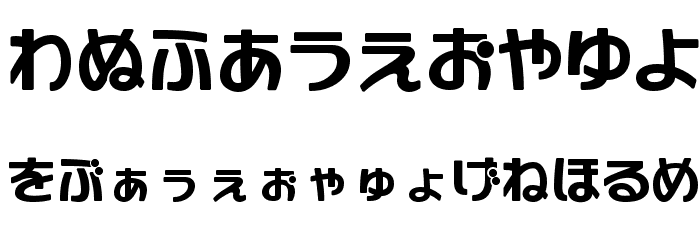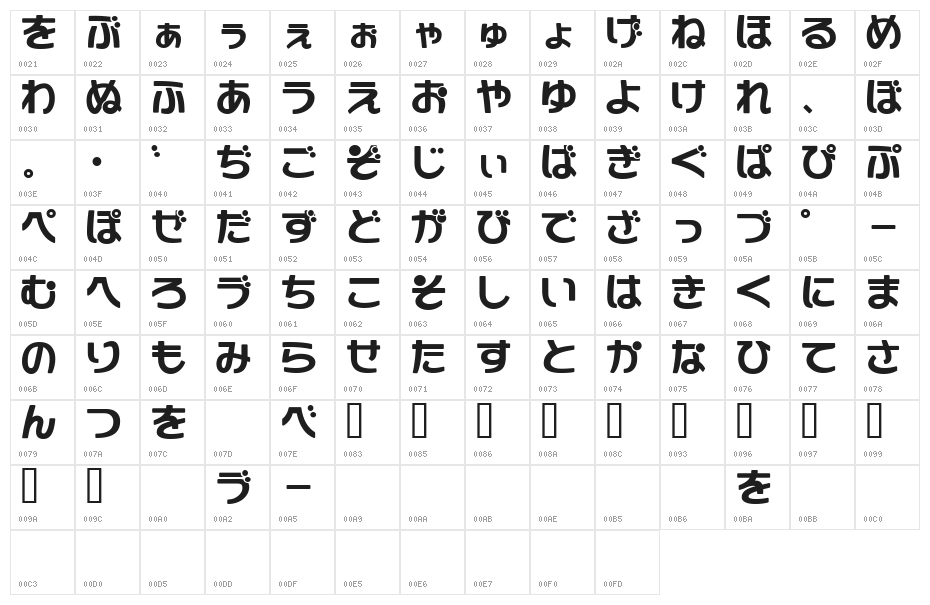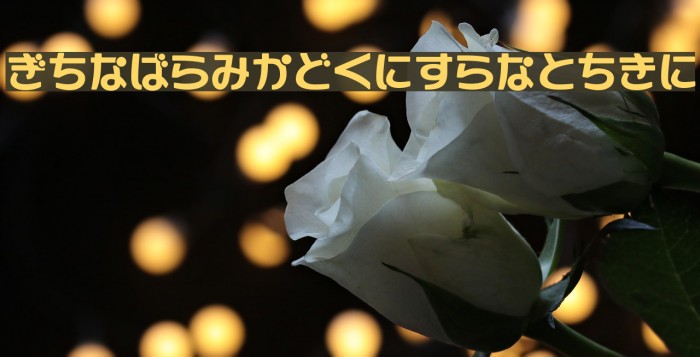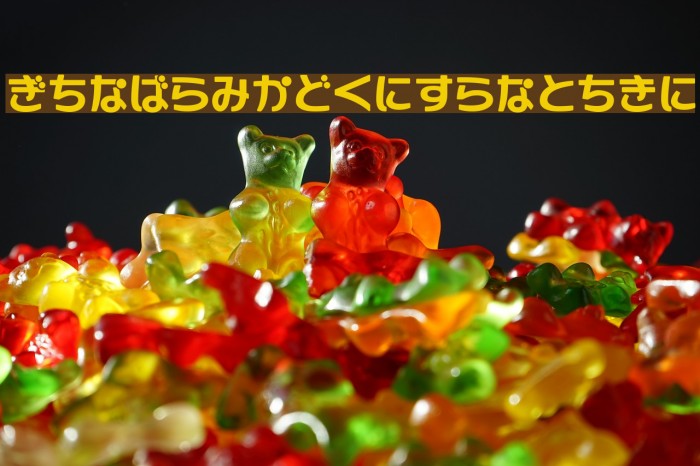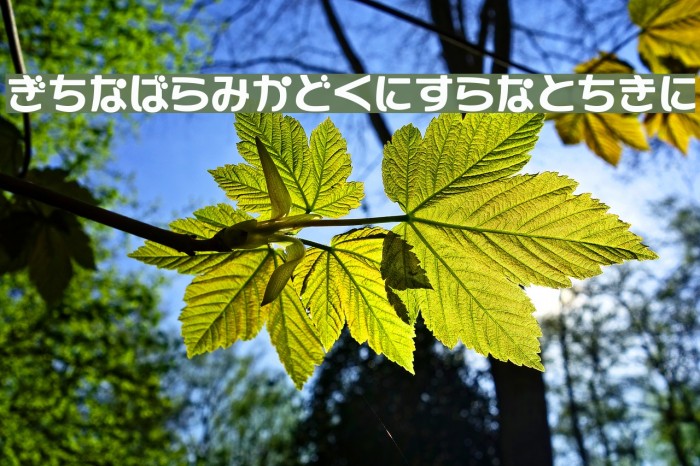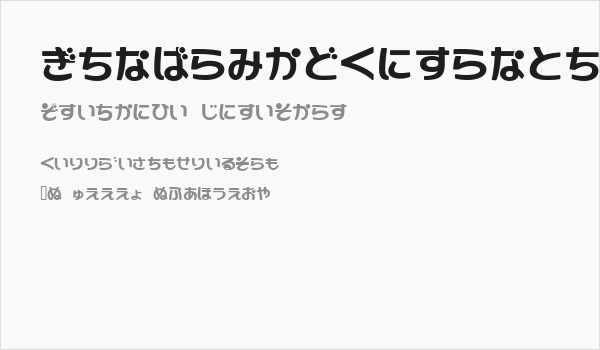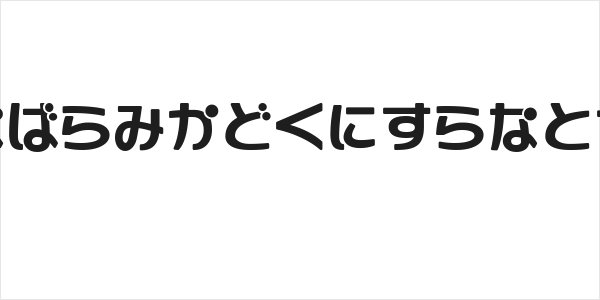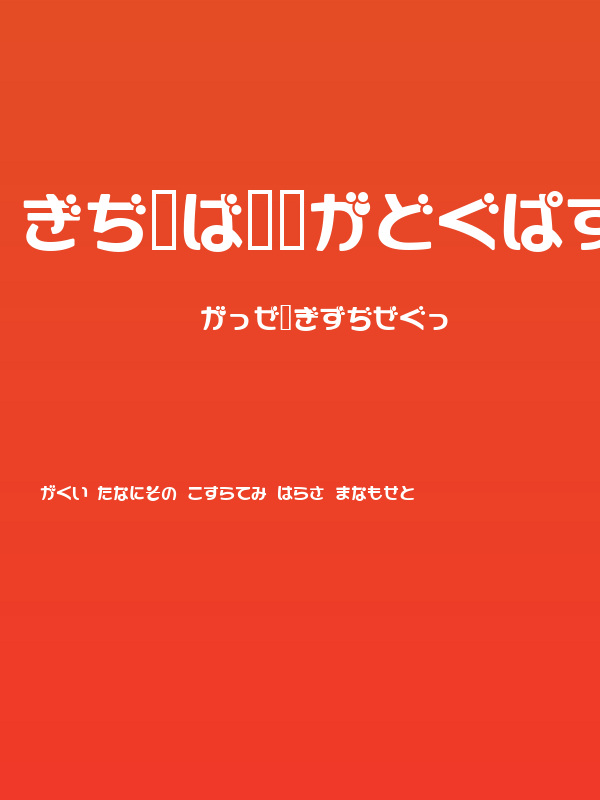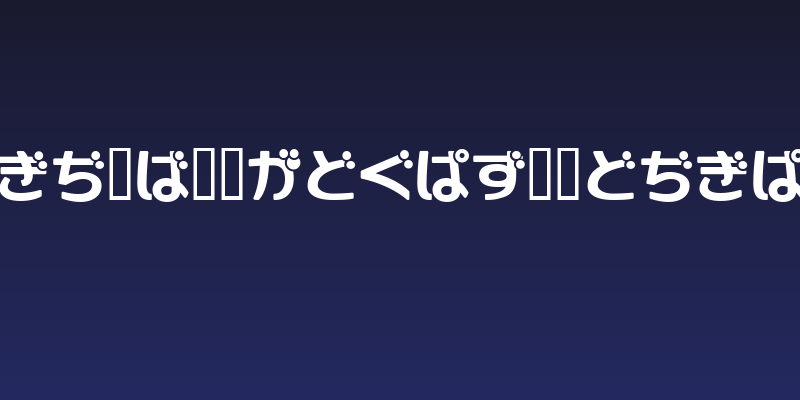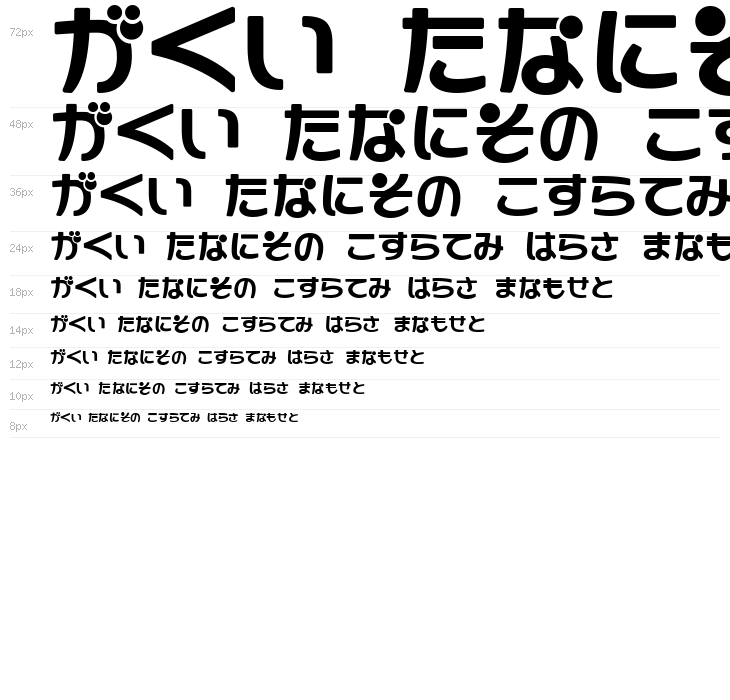
GauFontShirousagi Font
GauFontShirousagi Description
This font features bold, rounded characters with a playful and friendly appearance. The strokes are thick and consistent, providing a strong visual impact. The characters are well-spaced, ensuring readability while maintaining a cohesive look. The design is modern and clean, making it suitable for various applications. The font's style is reminiscent of contemporary Japanese typography, with a focus on clarity and simplicity. It is versatile, capable of being used in both digital and print media. The overall aesthetic is approachable and engaging, making it ideal for creative projects.